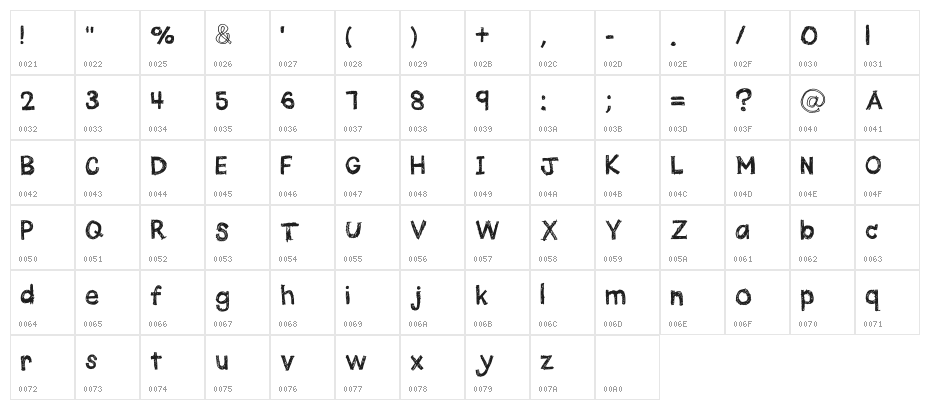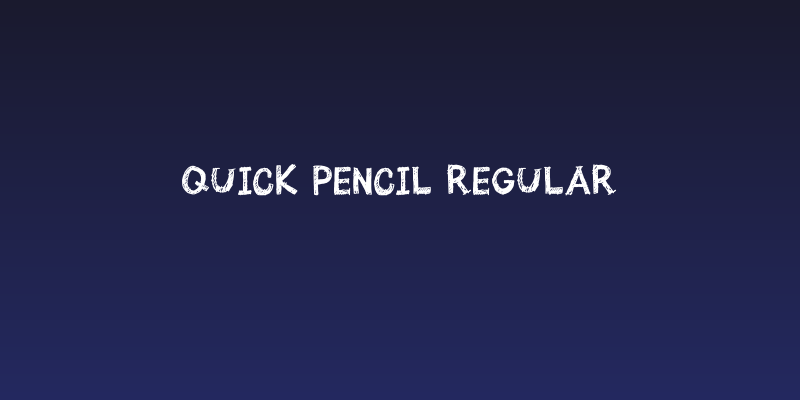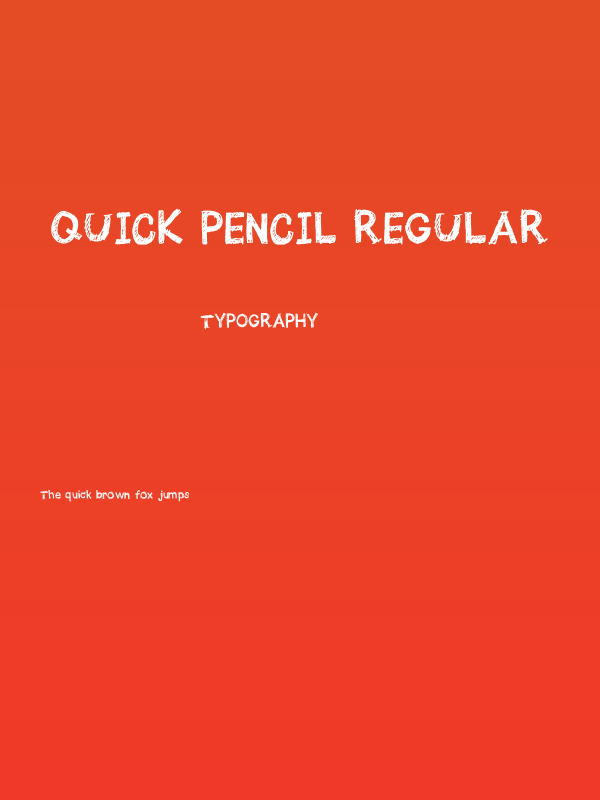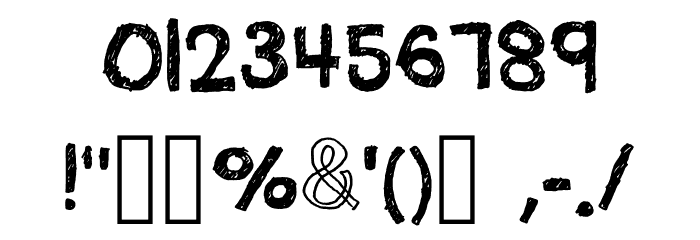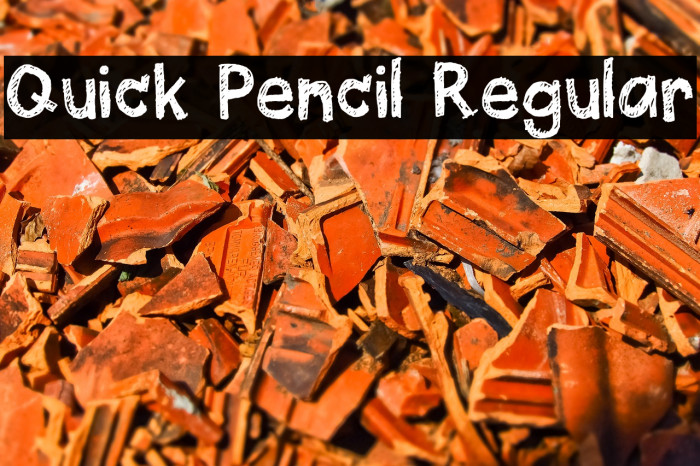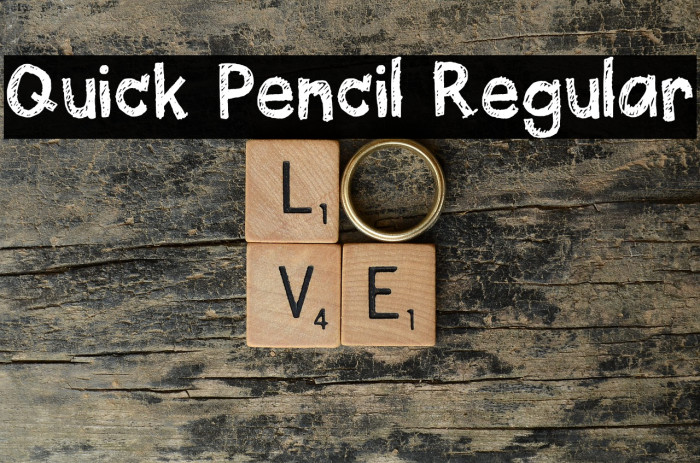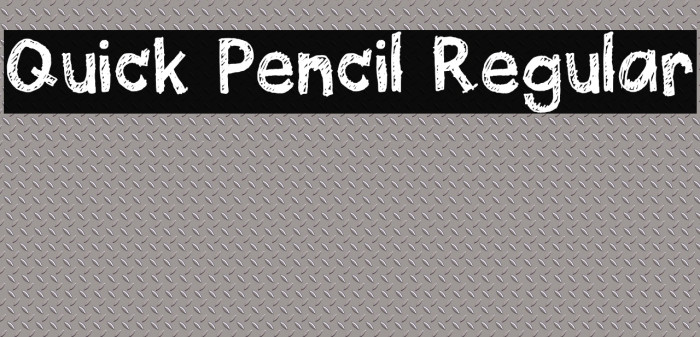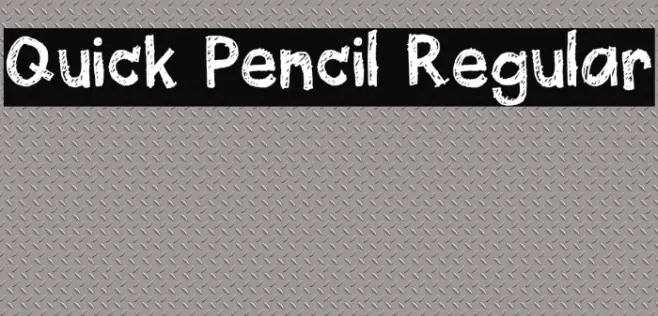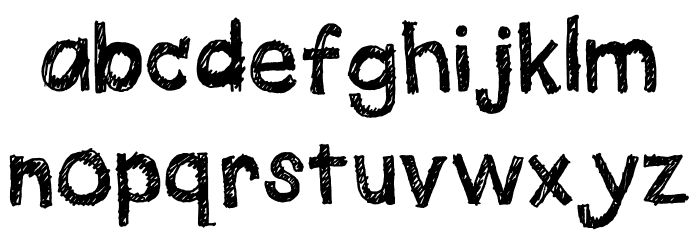
Quick Pencil Regular Font
Quick Pencil Regular Description
This font features a playful, hand-drawn style that mimics the look of pencil sketches. Each character is filled with a textured, scribbled effect, giving it a casual and artistic appearance. The uppercase and lowercase letters maintain a consistent style, with slightly uneven lines that add to the hand-crafted feel. Numbers and special characters follow the same design, ensuring a cohesive look across all text. The font's unique texture makes it stand out, ideal for projects that require a creative and informal touch.
| Proposed Projects | Ideal for children's books, creative posters, art projects, and informal branding. |